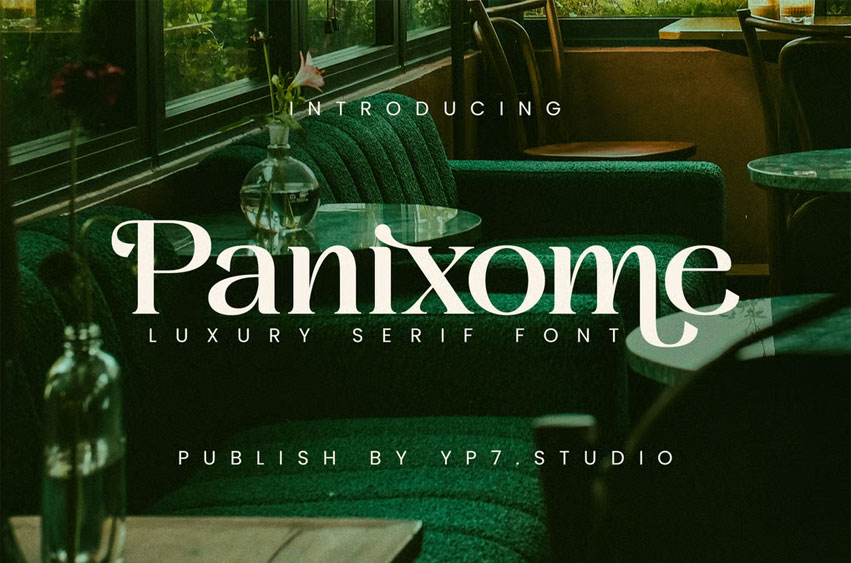
Panixome Font
Panixome Font Luxury Serif Font – Panixome.
It is suitable for flyers, posters, novels, letterheads, or any design requirements you want to be awesome.